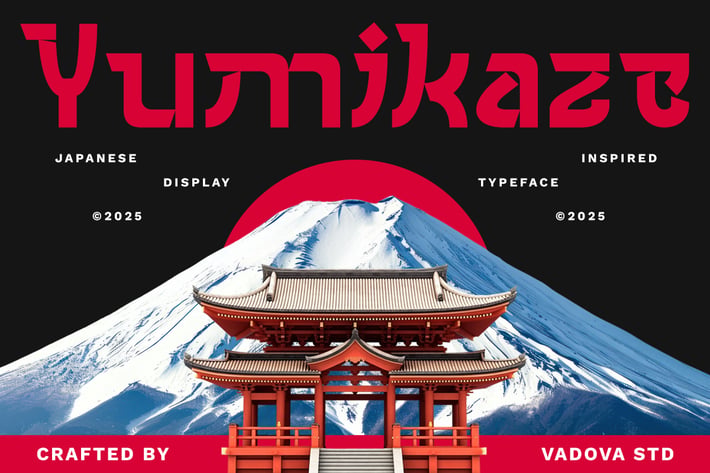
Yumikaze Japanese Creative Font
YUMIKAZE is a Japanese-inspired display font that combines bold geometric forms with sharp, modern details. Influenced by traditional Japanese visual culture and contemporary graphic design, this typeface delivers a powerful and confident presence. Its clean structure and distinctive shapes make it highly legible while maintaining a strong cultural character. YUMIKAZE is designed to create striking headlines and impactful visual identities with a modern Asian aesthetic.
Suitable For Japanese-themed branding, modern logos, posters, headlines, fashion graphics, streetwear branding, album covers, game and movie titles, restaurant branding, packaging, event visuals, editorial design, and creative projects that require a bold, modern, and culturally inspired display font.